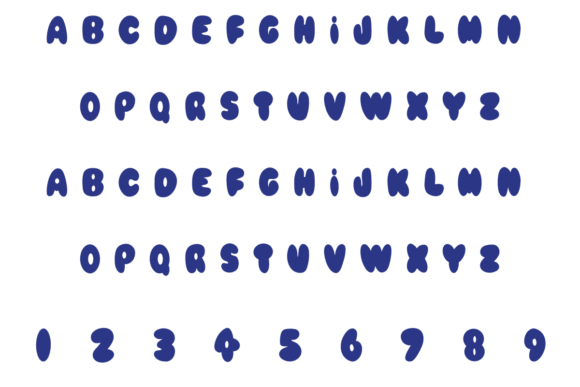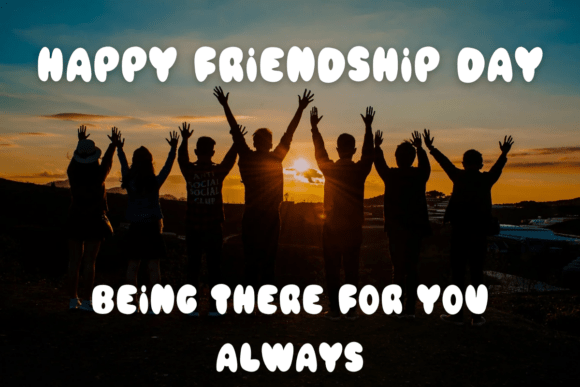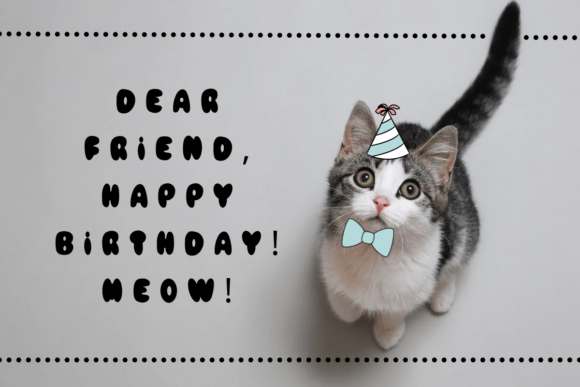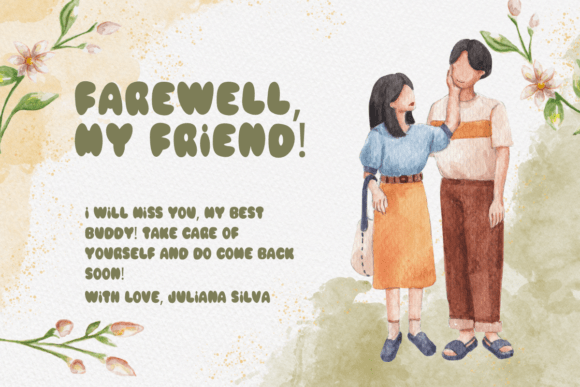
Introducing the Friends Font: A Playful and Youthful Typeface for Your Designs
Are you looking for a font that exudes joy, friendliness, and a dash of playfulness? Look no further than the Friends Font! This delightful typeface is bursting with energy and is perfect for designers and crafters who want to add a lighthearted and approachable vibe to their projects.
What Makes the Friends Font So Special?
The Friends Font features chunky rounded letters that are sure to bring a smile to anyone’s face. Its fun and quirky character make it an ideal choice for designs that require a youthful and bubbly feel. Whether you’re working on a children’s book, poster, cartoon, or any other project that needs a playful twist, this font is sure to deliver.
Perfect for Children’s Books and Designs
One of the standout features of the Friends Font is its suitability for children’s books and designs. The font’s chunky letters and fun character are reminiscent of a child’s handwriting, making it perfect for storybooks, picture books, and other designs aimed at kids. The font’s playfulness also makes it an excellent choice for educational materials, such as worksheets, activity sheets, and other learning resources.
Adding a Lighthearted Touch to Posters and Cartoons
The Friends Font is also an excellent choice for posters, cartoons, and other visual designs that require a lighthearted and approachable vibe. The font’s bold and rounded letters make it easy to read, even from a distance, making it perfect for posters and other large-format designs. Additionally, the font’s playful character makes it an excellent choice for cartoons, comics, and other animated designs.
Key Features of the Friends Font
- Chunky rounded letters: The Friends Font features bold and rounded letters that are sure to grab attention.
- Fun character: The font’s quirky character makes it perfect for designs that require a playful and youthful feel.
- Highly legible: The font’s bold letters make it easy to read, even from a distance.
- Versatile: The Friends Font can be used for a wide range of designs, from children’s books to posters and cartoons.
Tips for Using the Friends Font in Your Designs
Here are a few tips for using the Friends Font in your designs:
- Use it for headings and titles: The Friends Font is perfect for headings and titles, where you want to grab attention and add a playful touch.
- Pair it with other fonts: The Friends Font can be paired with other fonts to create a unique and interesting design.
- Experiment with colors: The Friends Font looks great in bright and bold colors, so don’t be afraid to experiment and find the perfect color scheme for your design.
In conclusion, the Friends Font is a playful and youthful typeface that is perfect for designers and crafters who want to add a lighthearted and approachable vibe to their projects. With its chunky rounded letters and fun character, this font is sure to bring joy and friendliness to any design. Whether you’re working on a children’s book, poster, cartoon, or any other project, the Friends Font is an excellent choice.